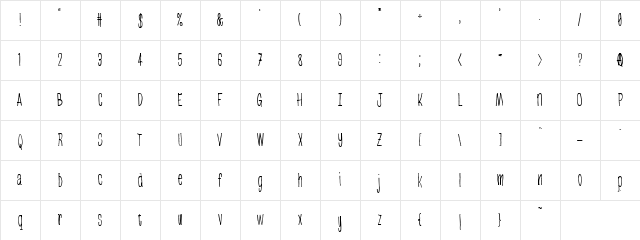
Complete greenbeans Thin glyph index. Displaying only characters natively supported by greenbeans Thin font.
greenbeans is a composed and adaptable typeface that performs quietly and consistently across a wide range of design contexts. Its slender proportions lend an understated elegance to any composition.